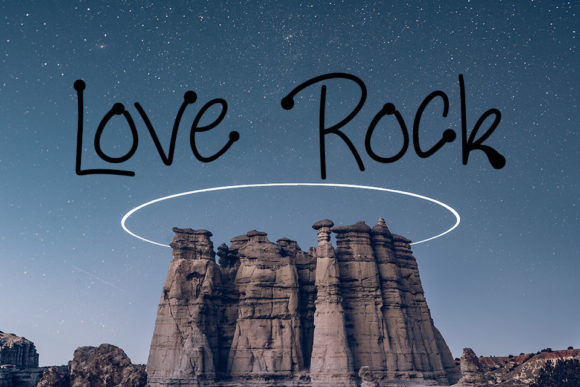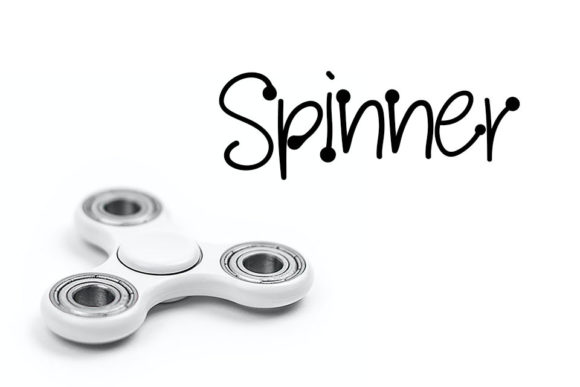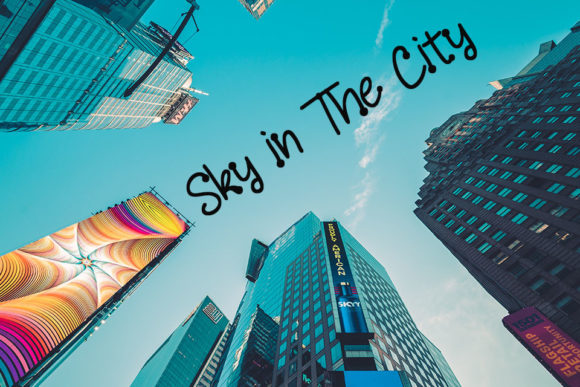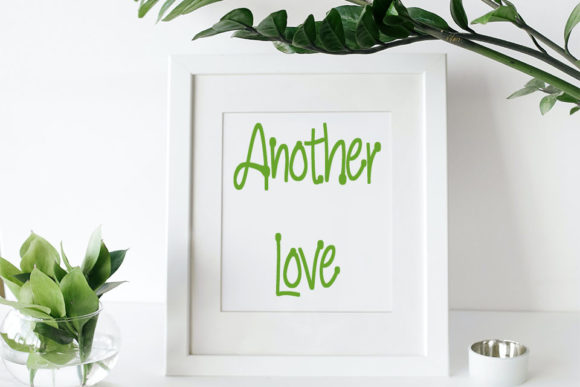
Introducing Dual Planet Font: Elevate Your Designs with Elegance and Sophistication
In the world of typography, a font can make or break a design. It’s the perfect blend of style, elegance, and personality that can elevate a project from ordinary to extraordinary. If you’re a designer, crafter, or simply someone who appreciates beautiful typography, you’re in for a treat. Say hello to Dual Planet Font, a stunning handwritten font that’s about to become your new favorite.
A Masterful Blend of Classic and Contemporary
Dual Planet Font is an exquisite handwritten font that masterfully balances classy calligraphic influences with a contemporary and fresh feel. Its unique blend of traditional and modern elements makes it perfect for a wide range of design projects, from wedding invitations and branding materials to digital products and craft projects.
With Dual Planet Font, you can add a touch of sophistication and elegance to your designs. Its flowing lines, delicate curves, and precise lettering make it a true standout in the world of typography. Whether you’re looking to create a luxurious brand identity or a beautiful wedding invitation, this font is sure to impress.
What Makes Dual Planet Font So Special?
So, what sets Dual Planet Font apart from other fonts on the market? Here are just a few reasons why designers and crafters are falling in love with this beautiful font:
- Unique and Elegant Design: Dual Planet Font boasts a one-of-a-kind design that’s both elegant and sophisticated. Its delicate lines and curves make it perfect for creating beautiful, high-end designs.
- Versatile and Flexible: This font is incredibly versatile and can be used for a wide range of design projects, from digital products to print materials.
- Easy to Read and Use: Despite its elegant design, Dual Planet Font is incredibly easy to read and use, making it perfect for designers of all skill levels.
- Perfect for Branding and Marketing: With its sophisticated and luxurious feel, Dual Planet Font is perfect for creating high-end brand identities, marketing materials, and advertising campaigns.
How to Use Dual Planet Font in Your Designs
Using Dual Planet Font in your designs is incredibly easy. Here are just a few ways you can incorporate this beautiful font into your work:
- Wedding Invitations and Stationery: Add a touch of elegance and sophistication to your wedding invitations, stationery, and other paper goods with Dual Planet Font.
- Branding and Packaging: Use Dual Planet Font to create luxurious brand identities, packaging materials, and marketing collateral that stands out from the crowd.
- Digital Products: Incorporate Dual Planet Font into your digital products, such as ebooks, courses, and software, to add a touch of elegance and sophistication.
- Craft Projects: Use Dual Planet Font to add a personal touch to your craft projects, such as handmade cards, gift tags, and other paper crafts.
In conclusion, Dual Planet Font is a truly exceptional handwritten font that’s sure to become a favorite among designers and crafters. Its unique blend of classic and contemporary elements makes it perfect for a wide range of design projects, from wedding invitations and branding materials to digital products and craft projects. With its elegant design, versatility, and ease of use, Dual Planet Font is the perfect choice for anyone looking to elevate their designs to the highest levels.
So why wait? Fall in love with Dual Planet Font and bring your projects to life with its beauty and sophistication. Whether you’re a seasoned designer or a crafty DIY enthusiast, this font is sure to inspire and delight.